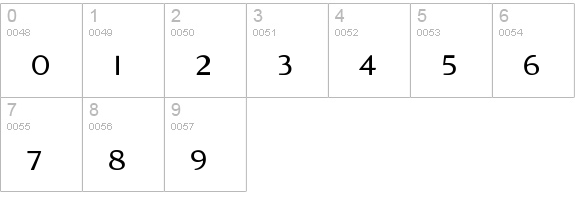
EideticModern-Regular is the standard, neutral variant in the EideticModern typeface family \xE2\x80\x94 well suited to general body text, paragraphs, and standard typographic work.
EideticModern-Regular is a sleek and sophisticated font that exudes elegance and modernity. With its clean lines and balanced proportions, this typeface is perfect for a wide range of design projects, from branding to editorial design. The versatility of EideticModern-Regular makes it a go-to choice for designers looking to achieve a polished and professional look. What sets EideticModern-Regular apart is its exceptional clarity and readability, making it ideal for both print and digital applications. Whether you're designing a poster, a website, or a business card, this font will ensure that your message is delivered with style and impact. The best part? EideticModern-Regular is available for free download at FontsMarket.com, making it easily accessible to all designers looking to elevate their work with a high-quality typeface. Don't miss out on the opportunity to add this versatile and timeless font to your design toolkit today.